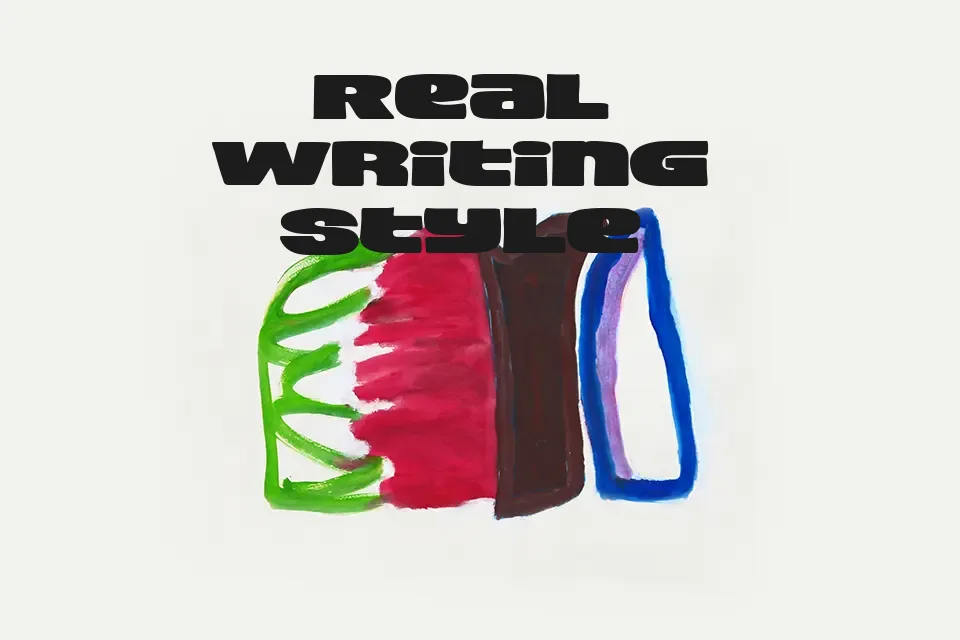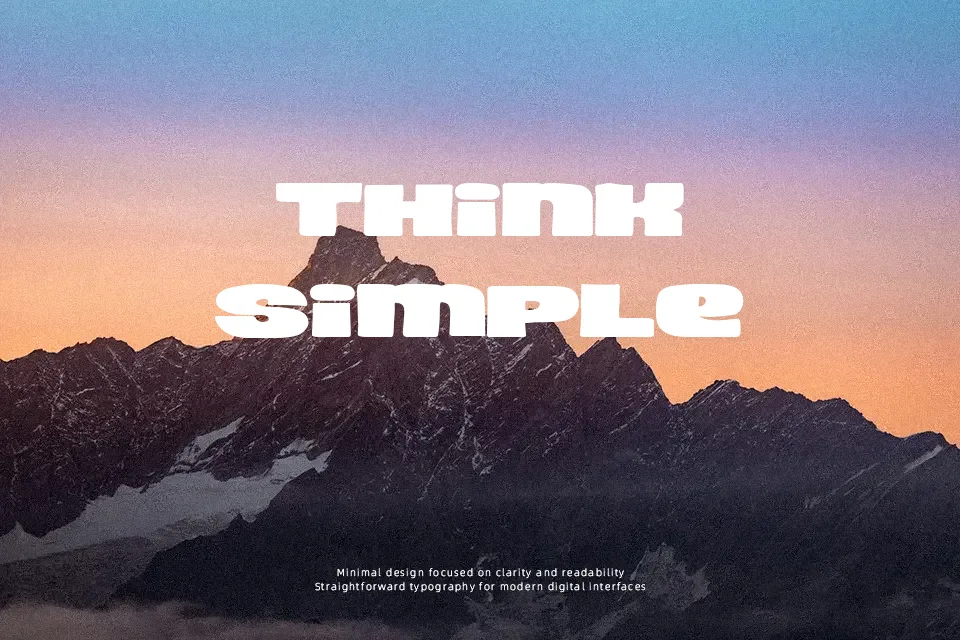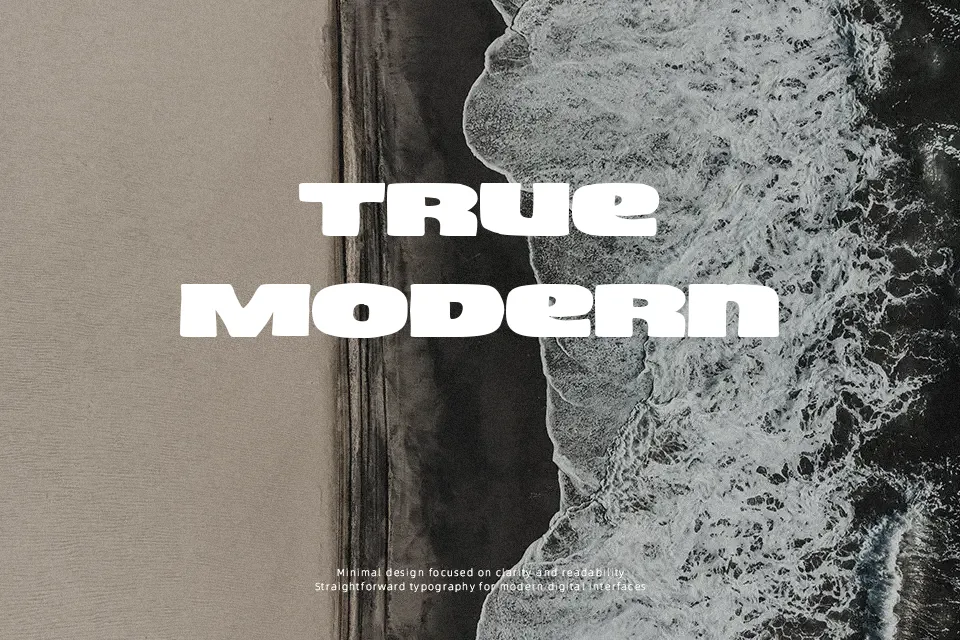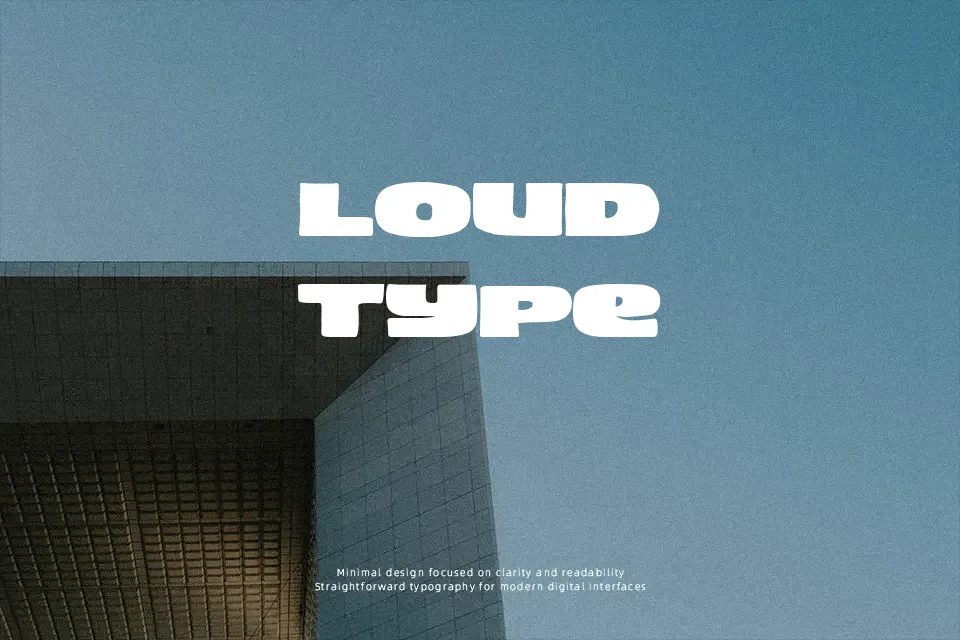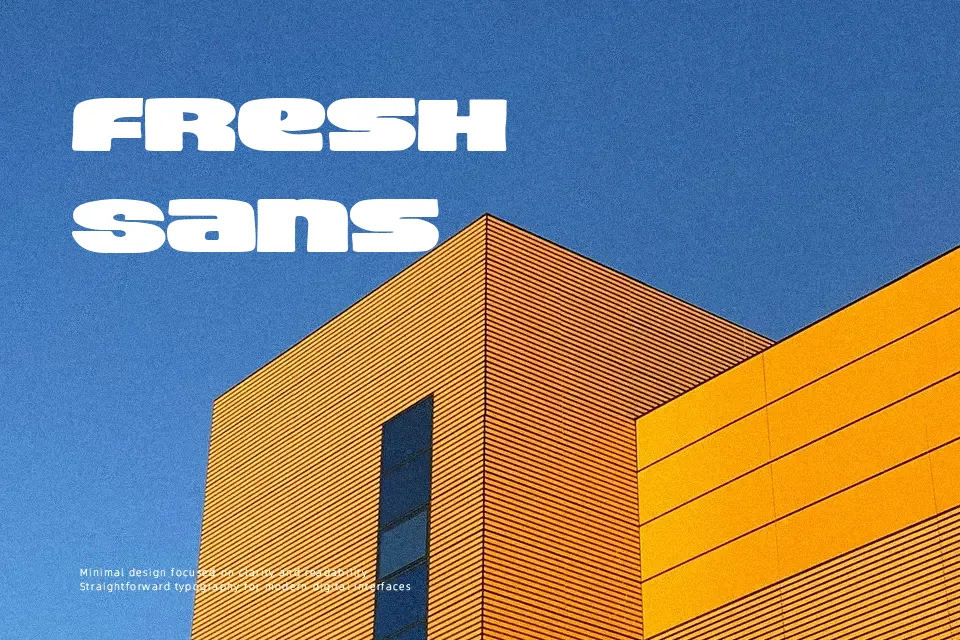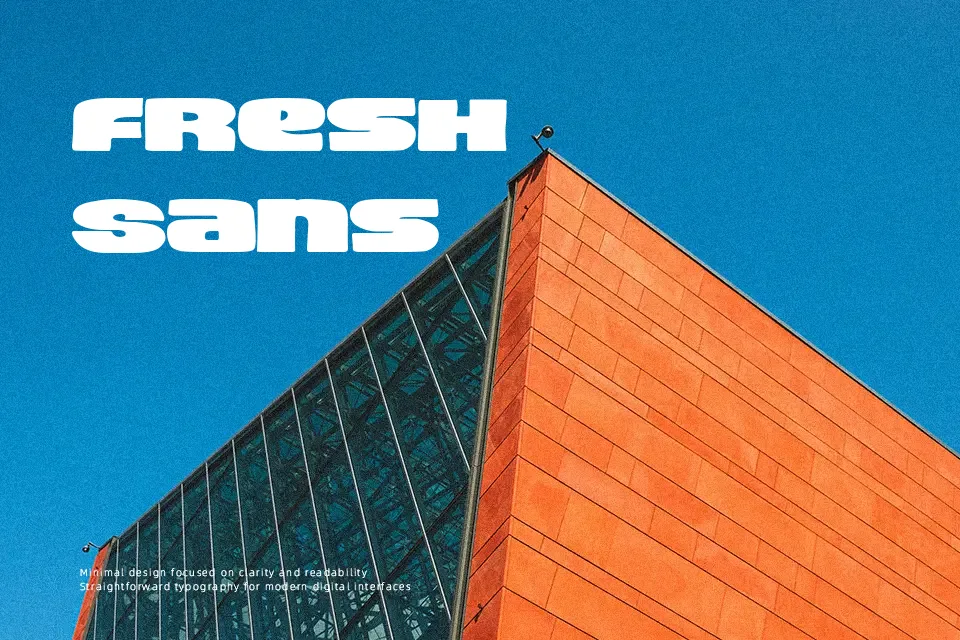
Cartucho Font
Cartucho Font presents an extra-bold display aesthetic featuring thick, tubular strokes with minimal modulation and generous rounded terminals. The proportions remain wide and sturdy, while the tight horizontal spacing produces a dense, unified typographic texture across short text strings. These weighty letterforms deliver strong visual presence in logo marks, event flyers, sticker designs, and video game titles. The spacing helps maintain clarity in larger headlines, allowing the character shapes to command attention instantly. However, the heavy weight and tight counters reduce legibility in continuous paragraphs, making the design less effective for small captions or editorial body text.
Best For: arcade poster headlines, retro gaming merchandise, novelty food packaging, sticker and apparel graphics
Not Ideal For: long paragraph text, mobile interface labels, formal corporate documents, dense spreadsheet data
Perfect for gaming, headline, and logo, with a bold and decorative style.